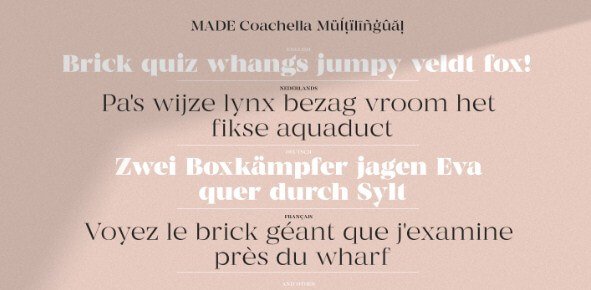
MadeType designed the modern Made Coachella font family which is best for logo designs. Download this gorgeous font typeface and use it now.
Made Coachella Font
We’re exceptionally keen on this Made Coachella font, because of its robustness and style. We can simply think it as a part of the brand of a luxurious guys’ company.